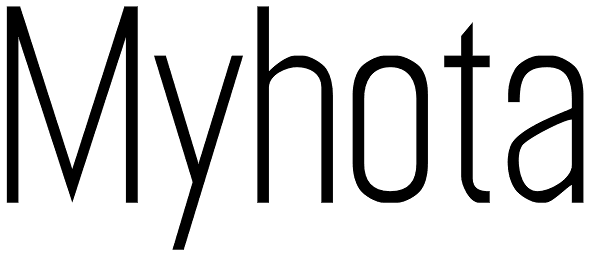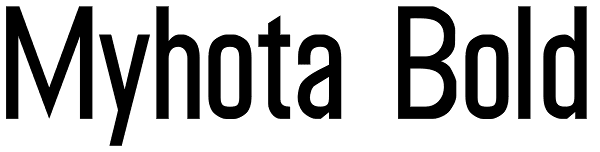
Myhota
Myhota is a condensed sans-serif face that has a bit of rawness to it. MyhotaBold was the original face, and the others were derived from it. MyhotaHatched was an attempt to see if a readable font could be hatched out of it by lowering the x-height...
Myhota Hatched
Myhota Hatched Bold
Myhota Bold